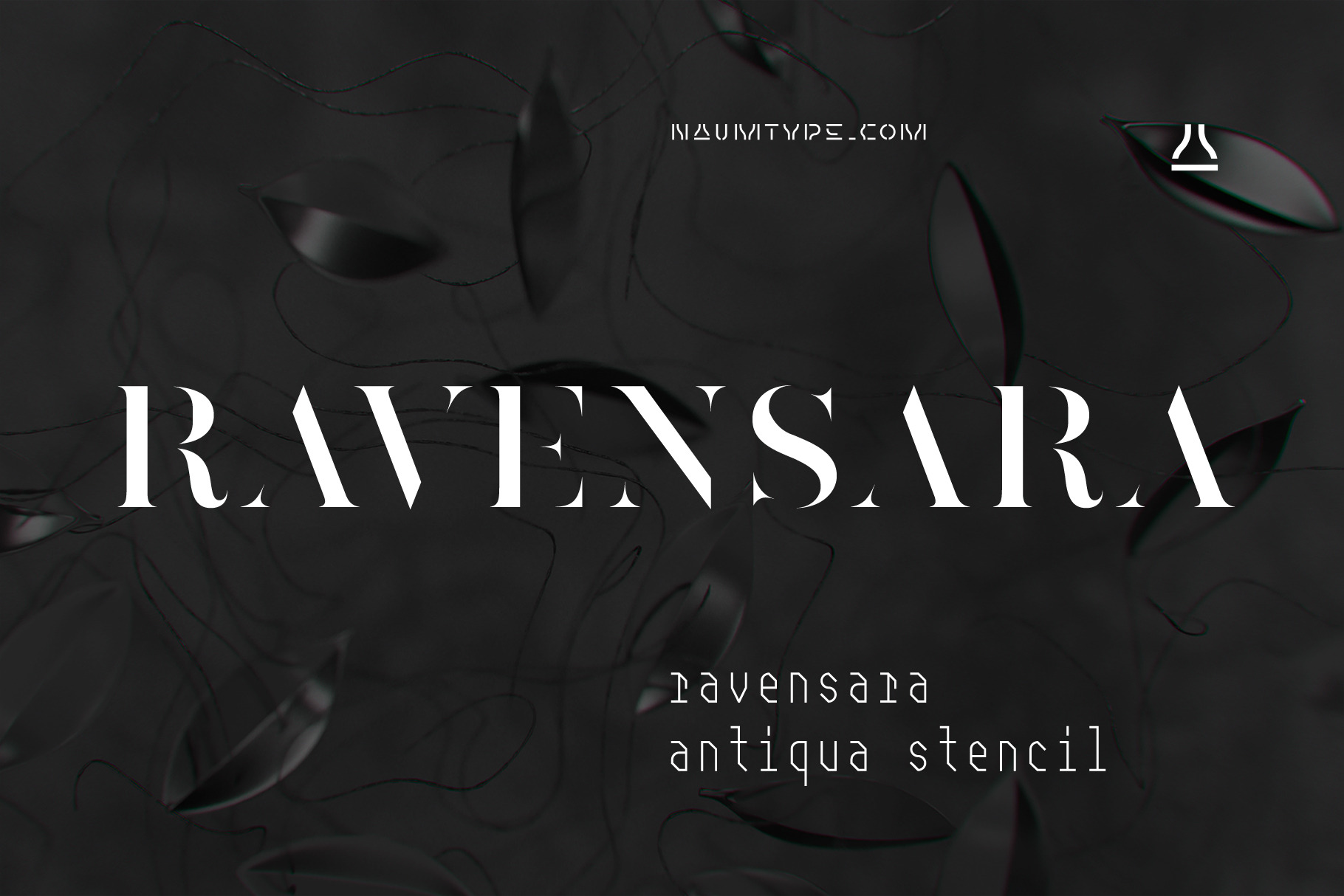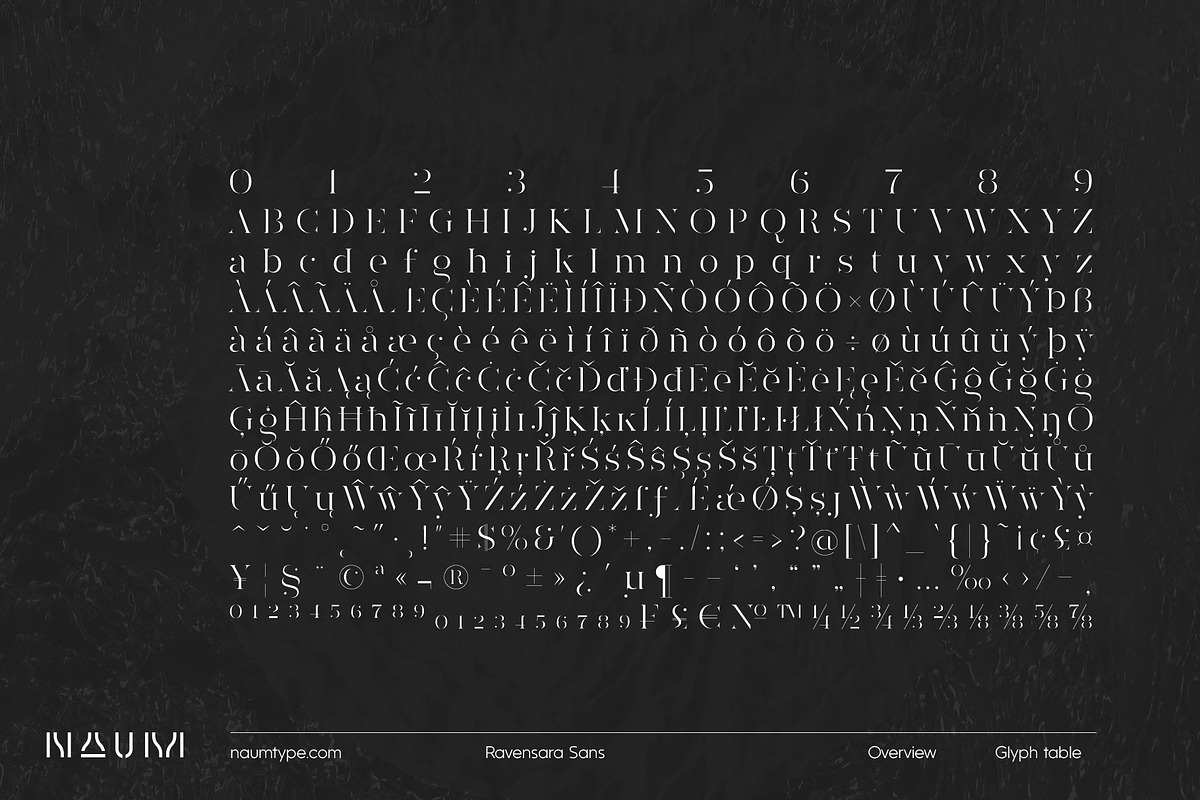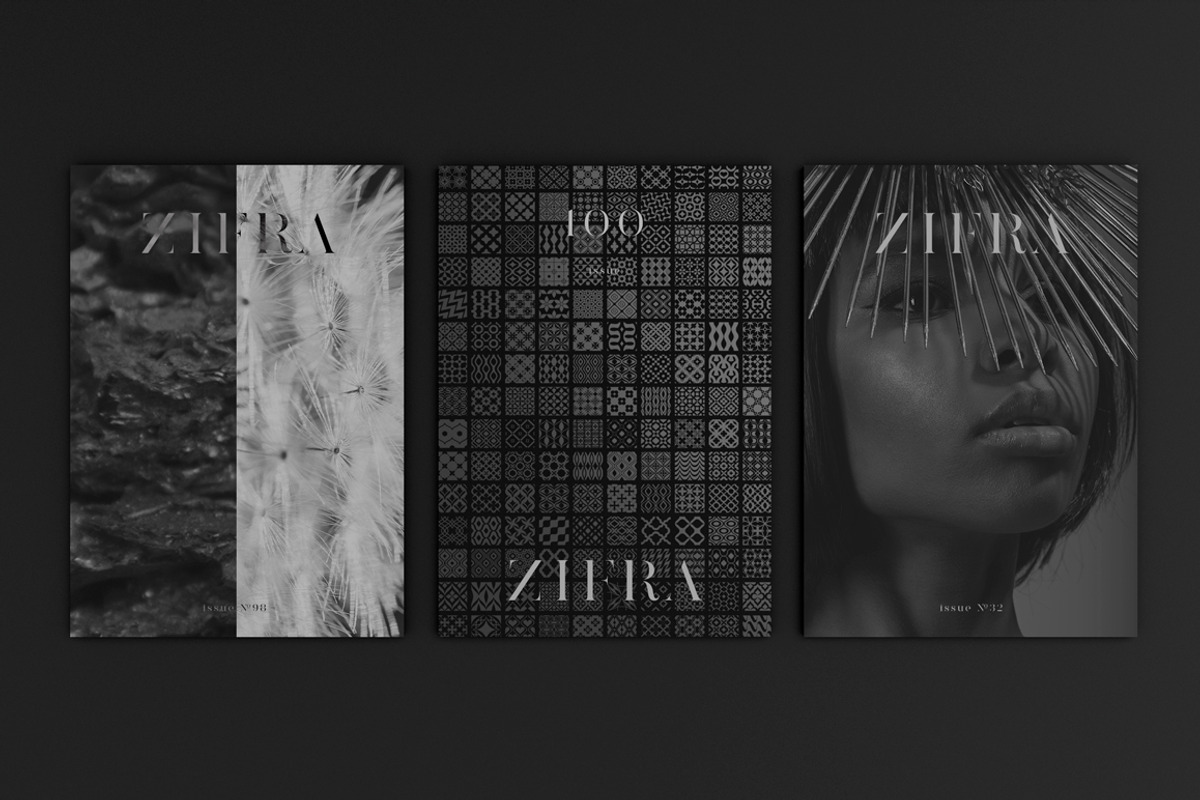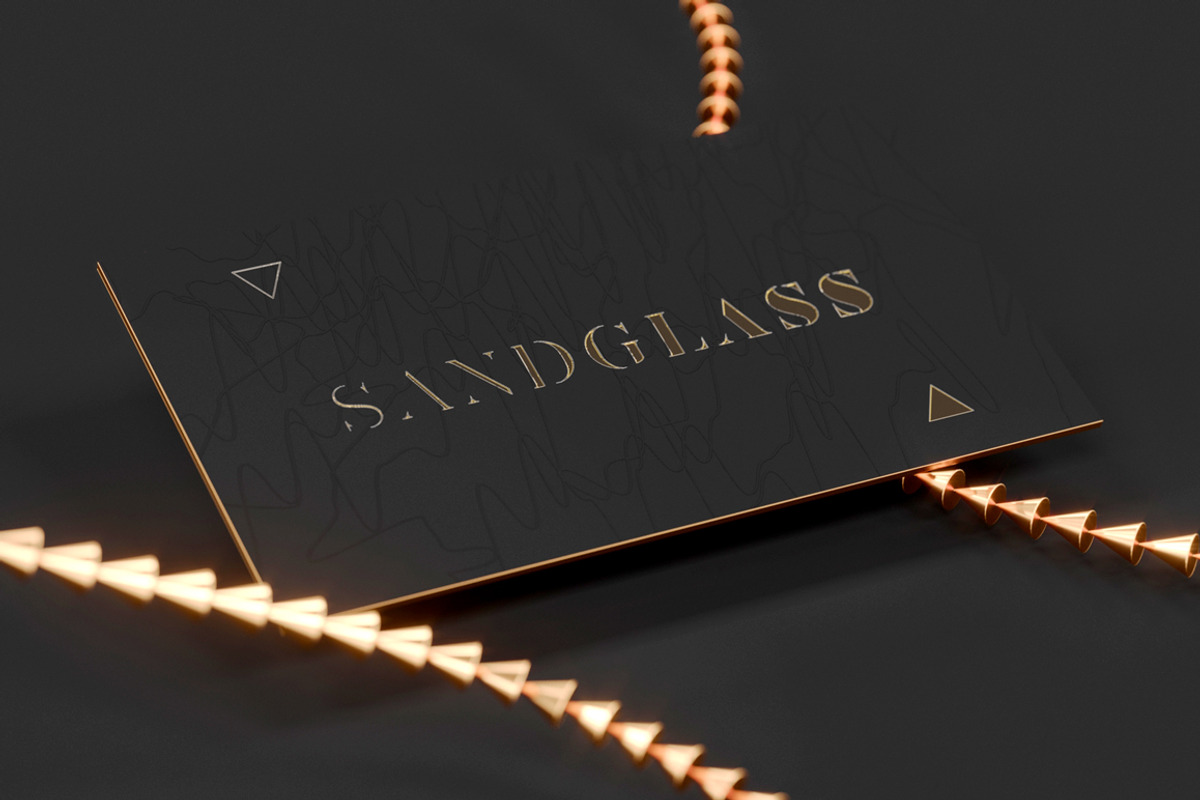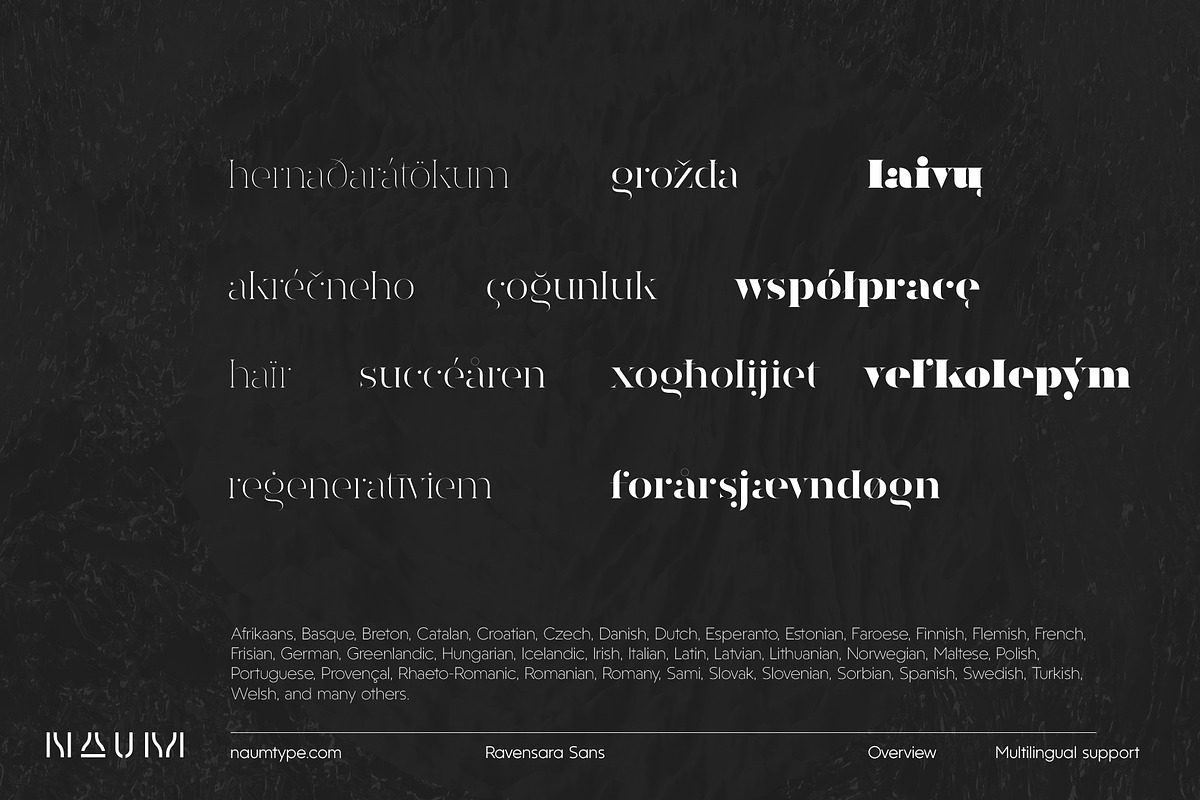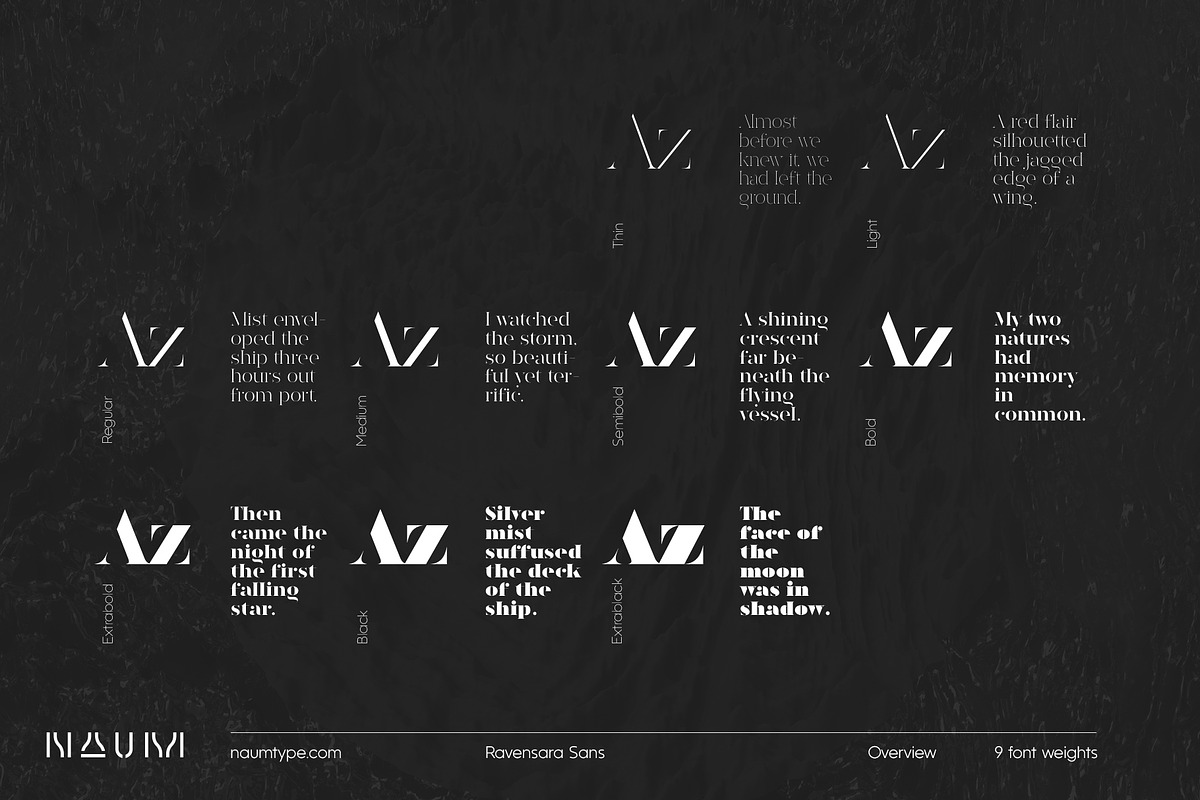
Ravensara Stencil | 9 fonts
Ravensara Stencil - elegant high contrast serif with a wide choice of weights.
Ravensara Antiqua Stencil is a display font family with 9 weights, from Thin to Extrablack with the highest contrast. This font was inspired by old-style classic typefaces, such as Didone and Baskerville, and got a modern feel by getting rid of unnecessary details and adding stencil elements to it.
Perfect for branding, packaging, headlines, posters, presentations, short texts.
- 9 weights
Languages Supported: Latin Extended-A (Western and Central European languages)